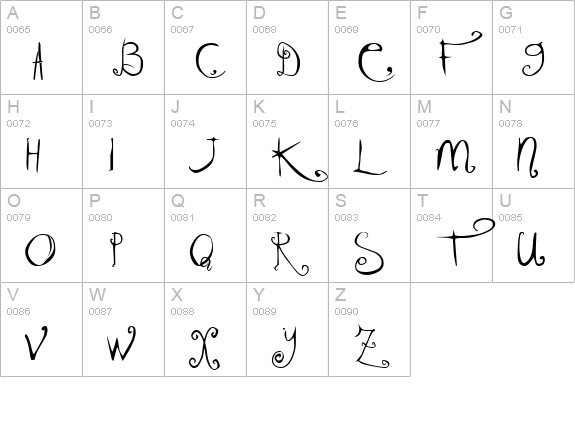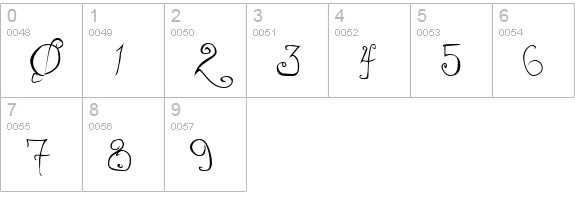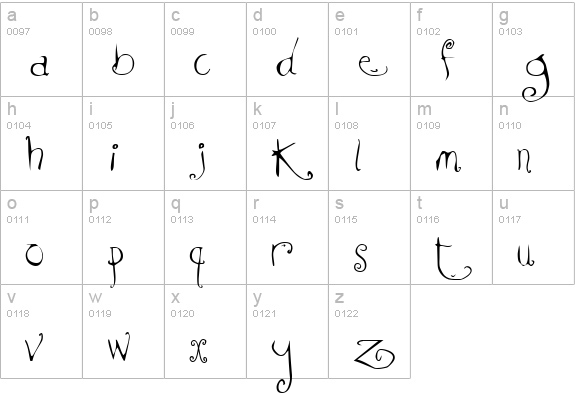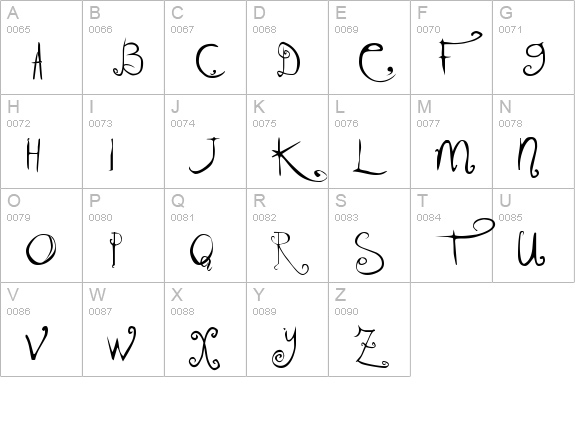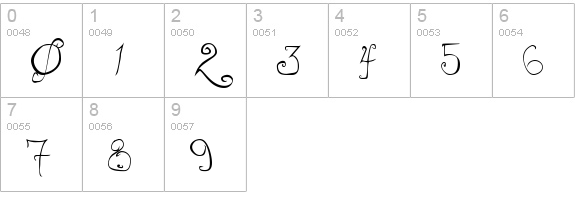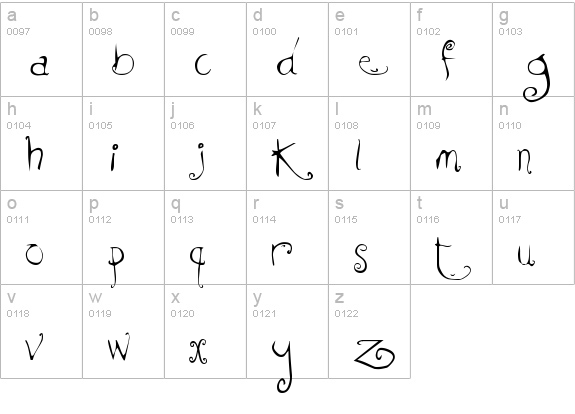
KissMeKissMeKissMe Font Details
KissMeKissMeKissMe font is a mesmerizing display font that will add a touch of elegance and sophistication to any design project. With its unique and intricate letterforms, this font will grab the attention of viewers and leave a lasting impression. Its fluid curves and delicate details make it perfect for branding, logos, invitations, and more. What sets KissMeKissMeKissMe font apart is not only its stunning design but also the fact that it is available for free! Yes, you read that right. This font is freely available to download at FontsMarket.com, a trusted source for high-quality fonts. Now you can enhance your designs without breaking the bank. Whether you're a professional designer or a creative enthusiast, KissMeKissMeKissMe font will be a valuable addition to your font collection. Its versatility allows it to be used in a wide range of projects, from fashion and beauty to food and lifestyle. The possibilities are endless. Don't miss out on this opportunity to elevate your designs with KissMeKissMeKissMe font. Download it for free today at FontsMarket.com and unlock the potential to create stunning visuals that will captivate your audience. Embrace the beauty of this font and let your creativity soar.